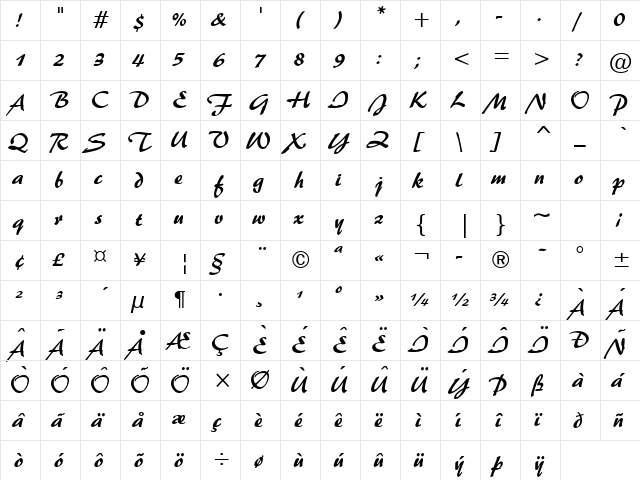
Brushstroke 35 Normal
Design Context for Brushstroke 35 Typeface
Brushstroke 35 brings a calligraphic fluidity to the page — its connecting strokes and expressive curves give it an unmistakably human quality.
Font Pairing: Combine Brushstroke 35 with a simple geometric sans for maximum contrast — the tension between flowing curves and clean structure is a classic typographic pairing.
Pro Tip: Use Brushstroke 35 for short runs of text — names, titles, or taglines. Extended body copy in script faces tires the eye quickly.